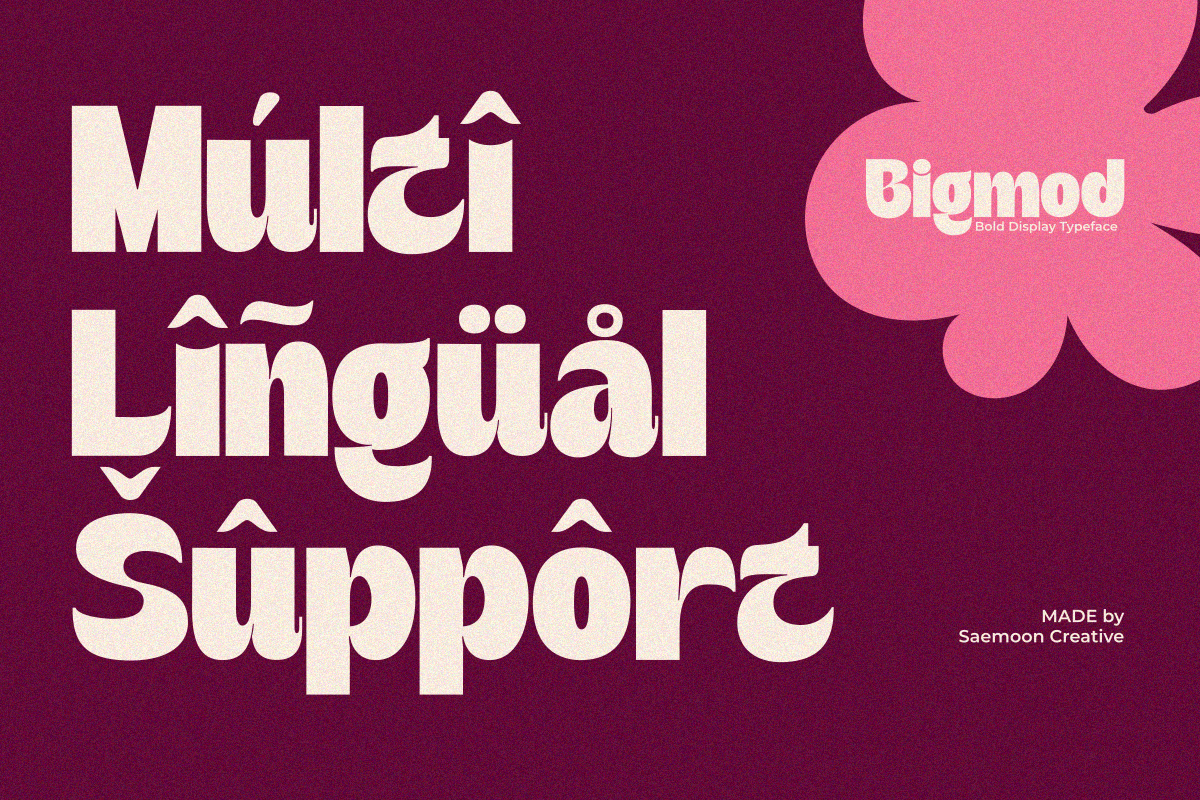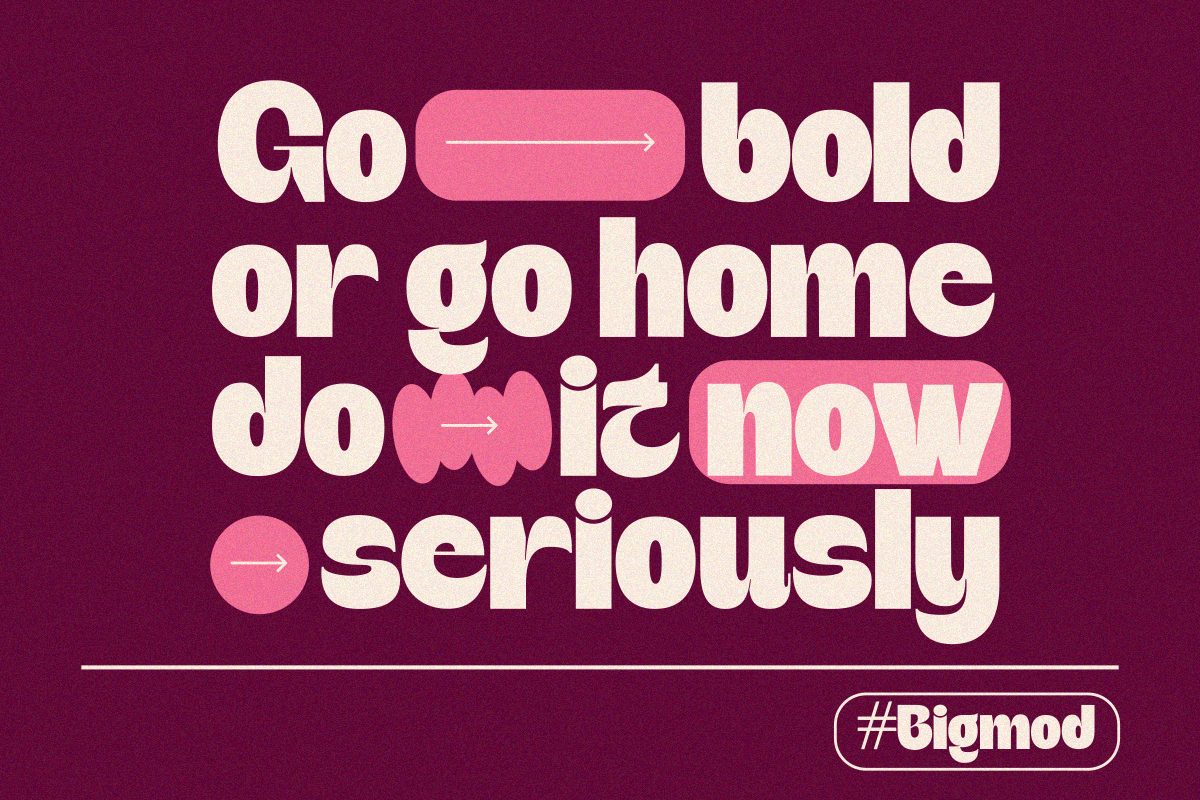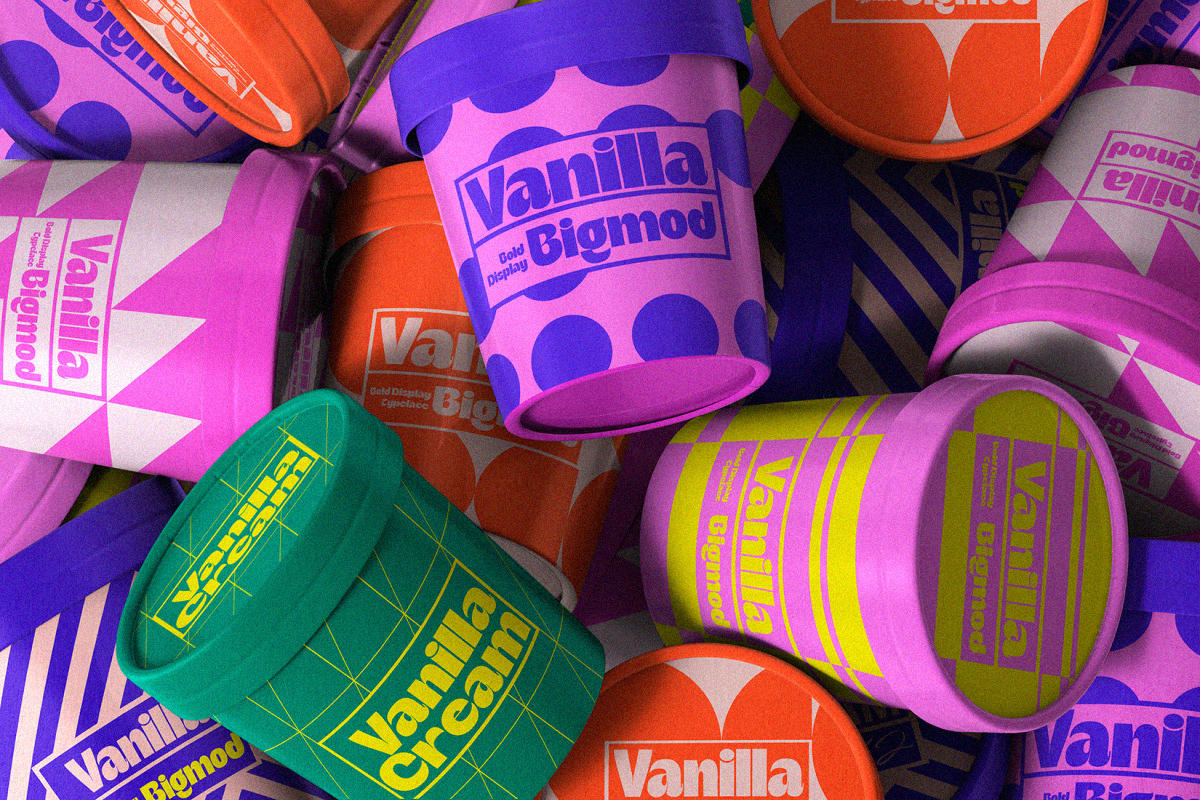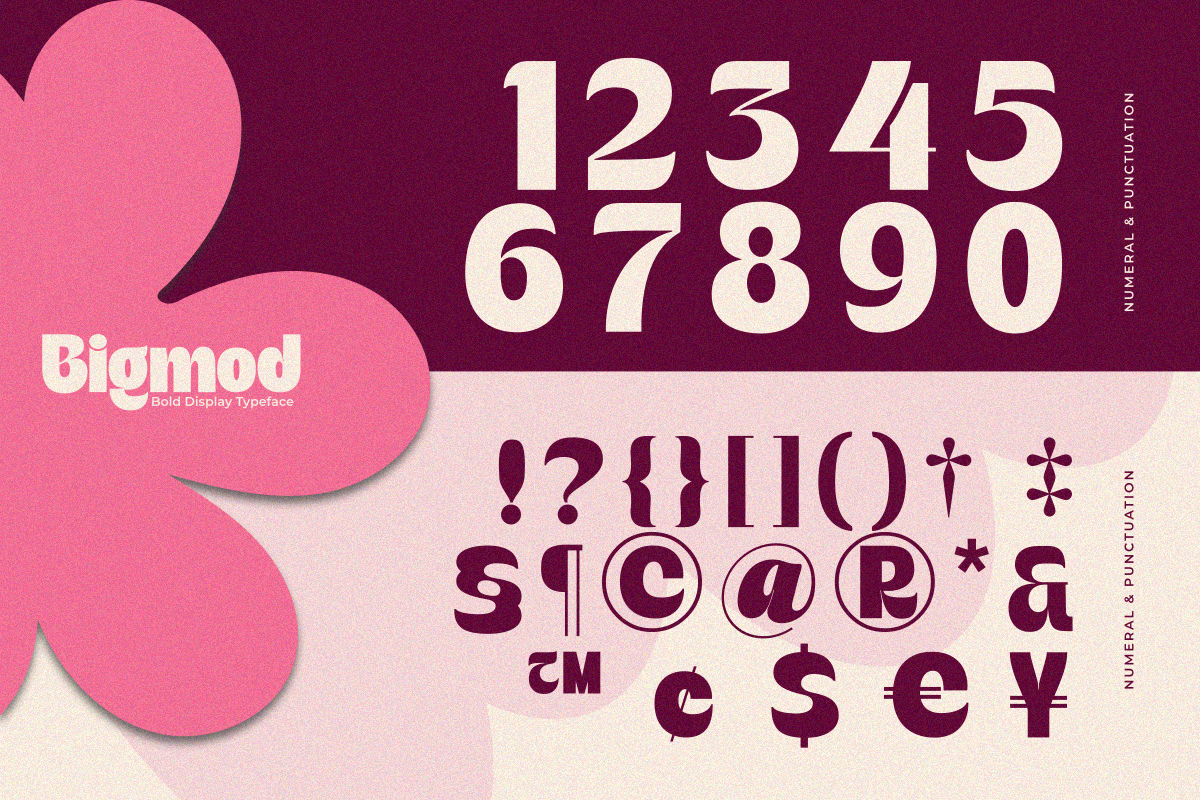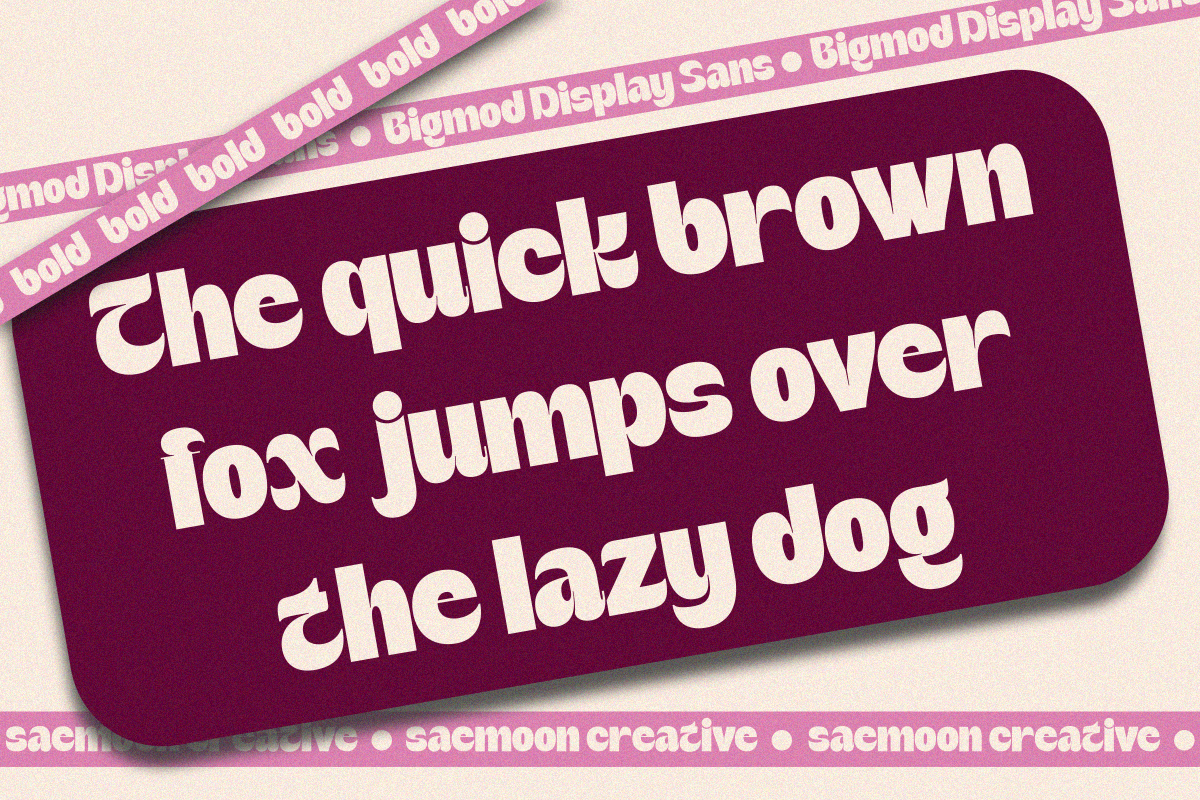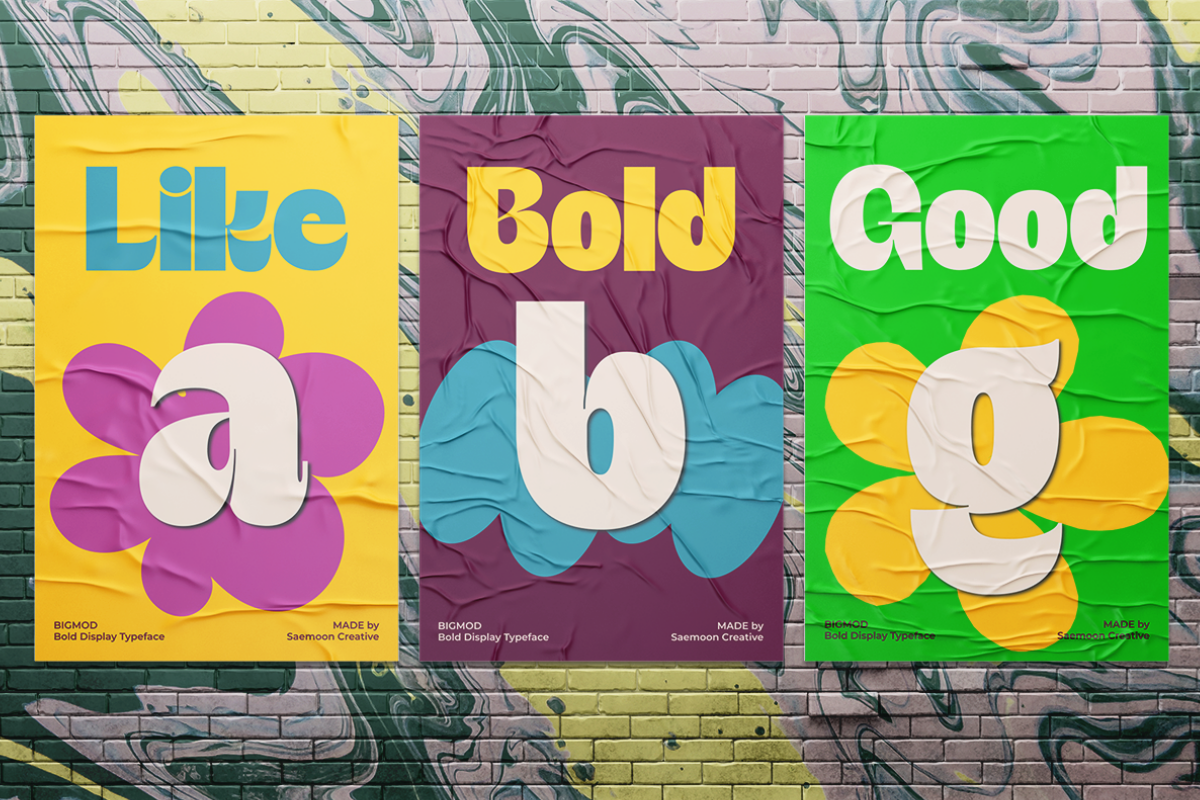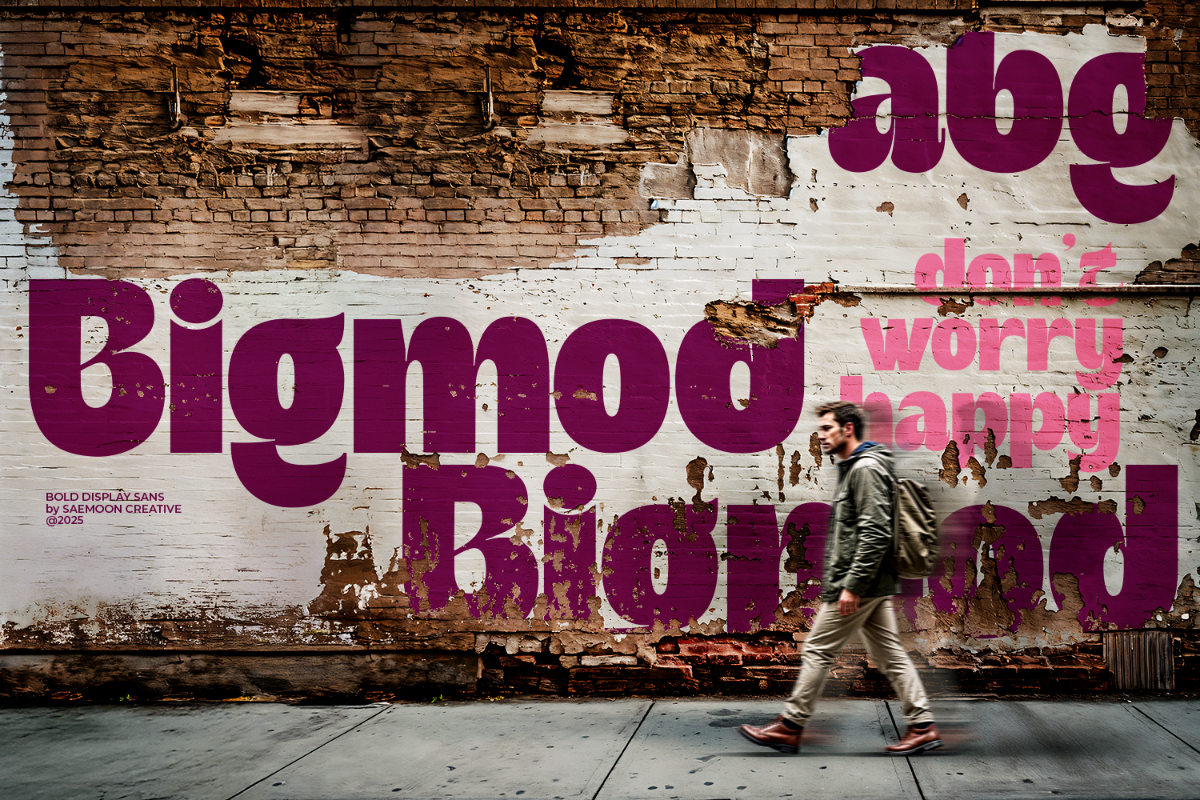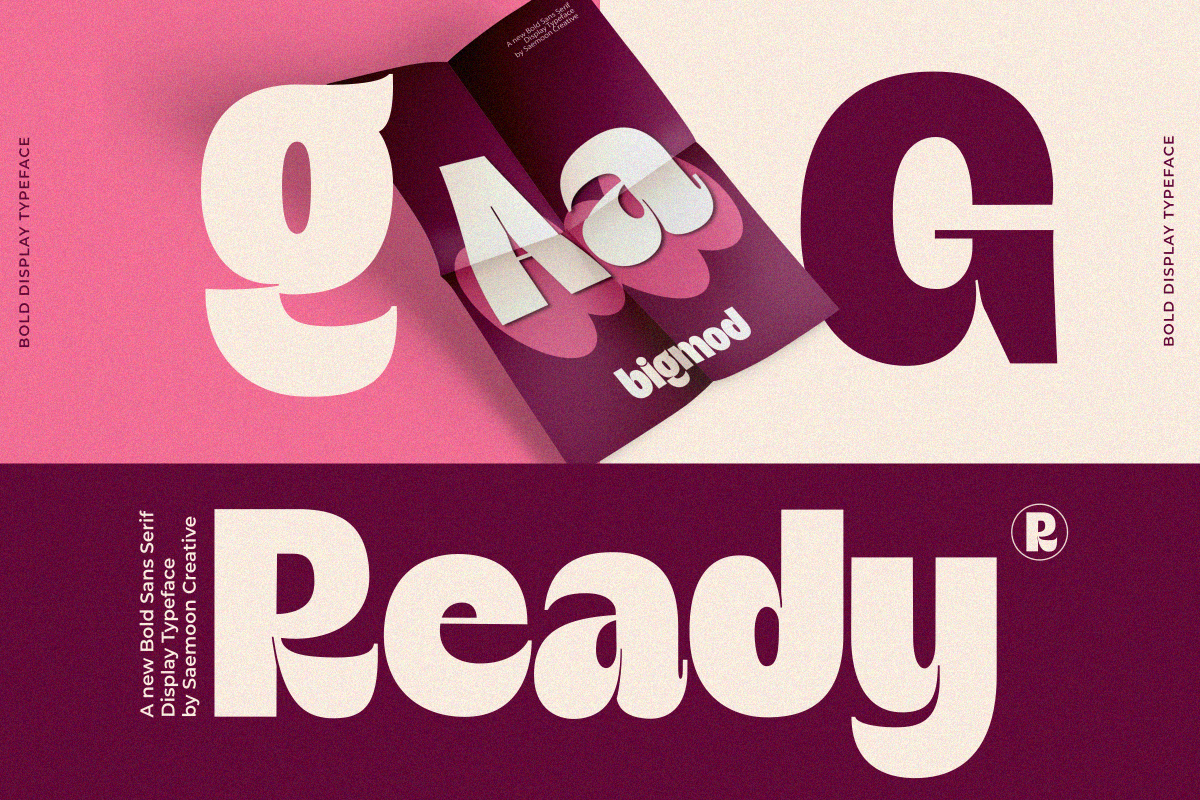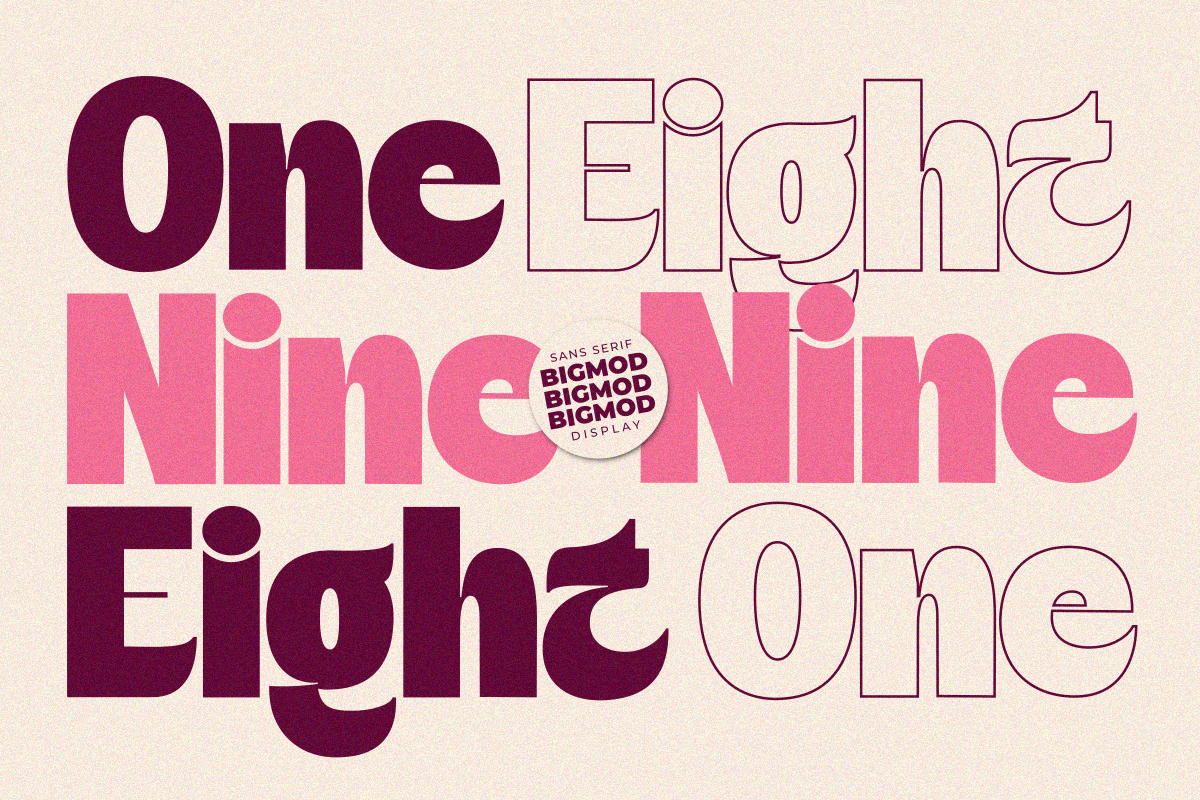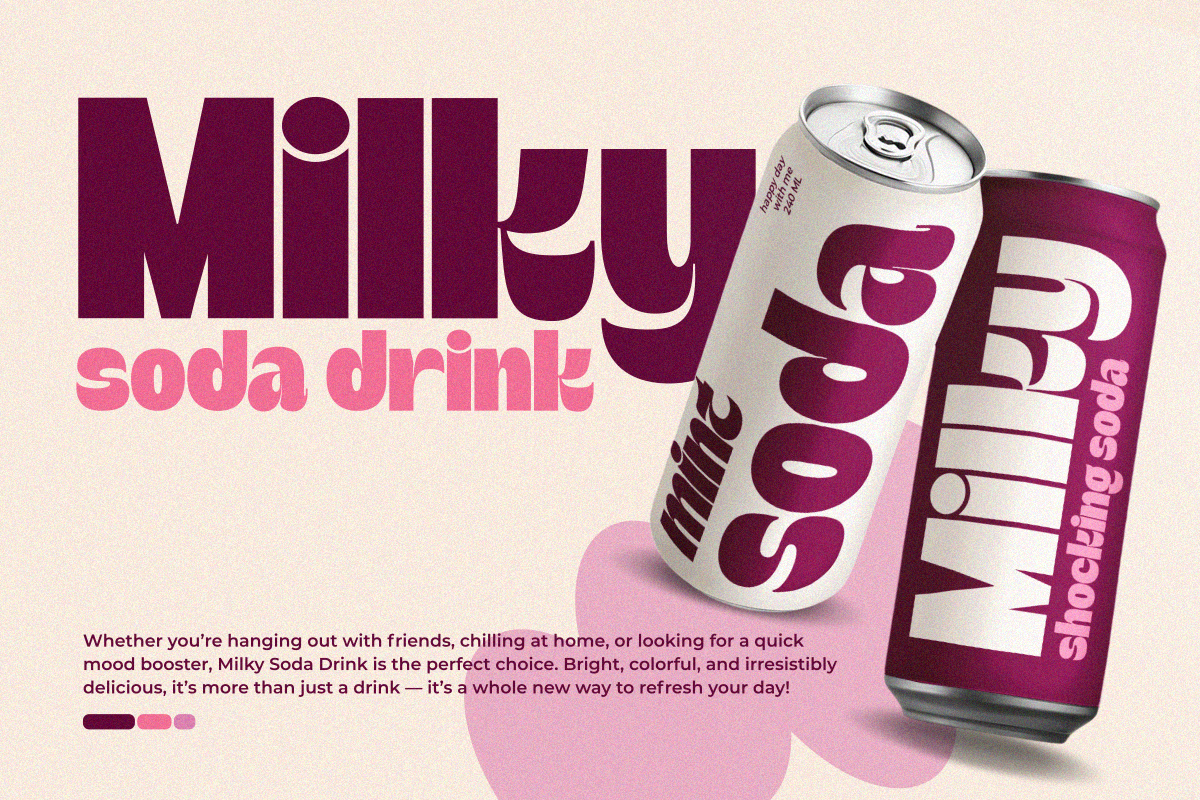
Bigmod
Bigmod – Bold Display Typeface + Outline Version
Bigmod is a bold display typeface with a playful and modern personality. Its chunky shapes, smooth curves, and strong presence make it perfect for standout typography. Bigmod also includes an Outline Version, giving you more creative flexibility to mix styles and create eye-catching designs.
Whether you’re working on logos, posters, branding, headlines, packaging, or social media graphics, Bigmod brings a fun yet professional touch to every project.
Uppercase & Lowercase Letters
Alternates (if included)
Ligatures (if included)
Logo & Branding
Display Headlines
Posters & Flyers
Merch & Apparel
Social Media Design
Advertising
Creative Typography Projects
Bigmod is designed to make your typography bold, expressive, and full of character. The addition of the outline version allows even more versatility—combine both styles for dynamic and modern visual results